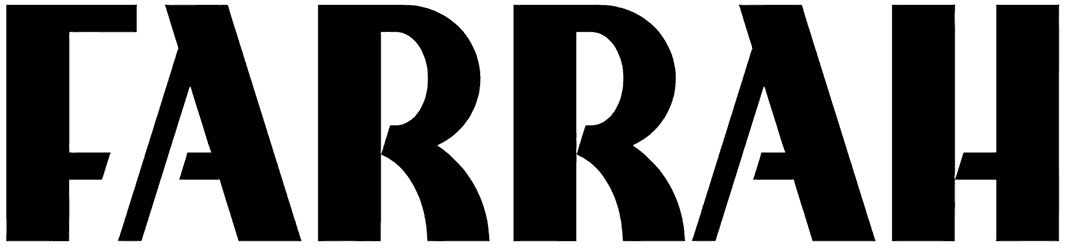
Farrah Font
Getting together to inspire the best way of conceiving and developing many movie headers, covers, banners, packaging, and other needs requires a classic attitude with top quality for free.
Don’t be worried about lacking lowercase letters. Farrah has known its mission in executing well in the judgments of onlookers, so starting off with a no-frills, breezy process of this retro font and counting moments for the effect that combines with a vintage and sweet touch. We hope you find delight in designing!